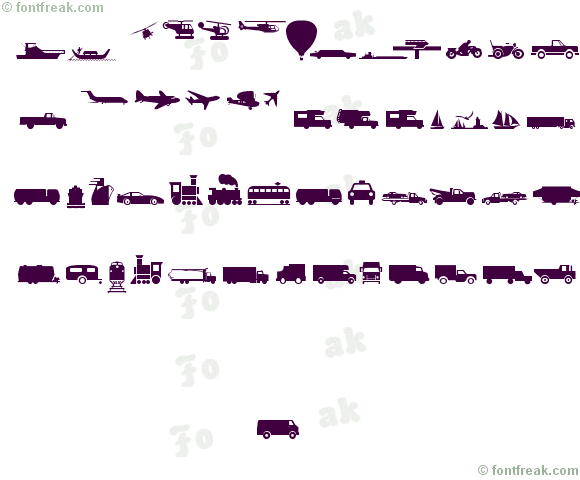
Traffic
The Traffic font by Manfred Klein is a distinctive display typeface that captures the essence of urban movement and activity. This font is characterized by its bold, rounded forms and playful design, making it perfect for capturing attention in various visual contexts. With a moderate stroke weight and minimal contrast, the Traffic font maintains clarity and legibility, ensuring that it stands out in any application. The spacing is well-structured, providing a balanced appearance that enhances readability. Its unique decorative elements, inspired by transportation motifs, add a whimsical touch that makes it suitable for a range of creative projects.
Ideal use cases for the Traffic font include vibrant movie posters, energetic event flyers, and dynamic restaurant menus that emphasize a fun dining experience. Its playful nature also makes it an excellent choice for children's books, educational materials, and urban-themed graphics. Graphic designers and small business owners will find this font particularly appealing as it brings a sense of liveliness and energy to their branding efforts. Content creators seeking to engage their audience with a unique visual style will benefit from incorporating the Traffic font into their projects.
What sets the Traffic font apart is its ability to convey movement and excitement while remaining approachable and friendly. Its unique character makes it not just a typeface, but a visual statement that embodies the spirit of urban life. The Traffic font free download offers an opportunity for designers to infuse their work with a distinctive, lively flair that resonates with audiences. Whether you’re crafting playful graphics or designing eye-catching promotional materials, the Traffic font is a versatile addition to any creative toolkit.